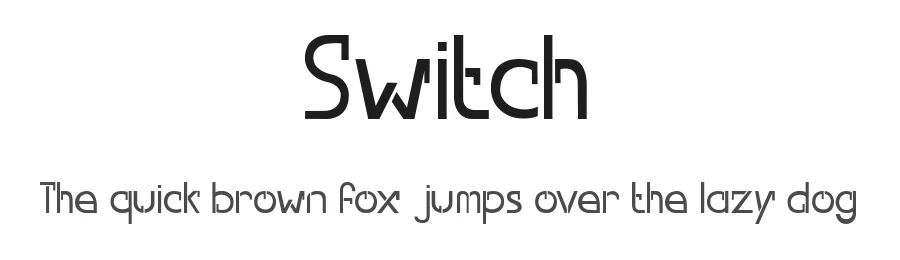
About Slice Font
Slice is a decorative font designed by astronautboys. It includes 120 glyphs, a regular weight, TTF (TrueType) format, and 107 languages. Slice is free to download; check the license details on this page before commercial use. Decorative fonts like Slice work best for logos, posters, packaging, and standout headlines.
Slice ships with 1 OpenType feature you can switch on in apps that support them (Illustrator, InDesign, Affinity, Figma, CSS font-feature-settings).
Slice Font is a decorative font that shines as a display or heading face. Pair it with a clean sans-serif or serif font for body text β the contrast creates a clear hierarchy while the two styles stay balanced and easy to read.
Slice Font
Slice Font is a decorative typeface by astronautboys, ideal for logos, invitations, branding, and creative projects.